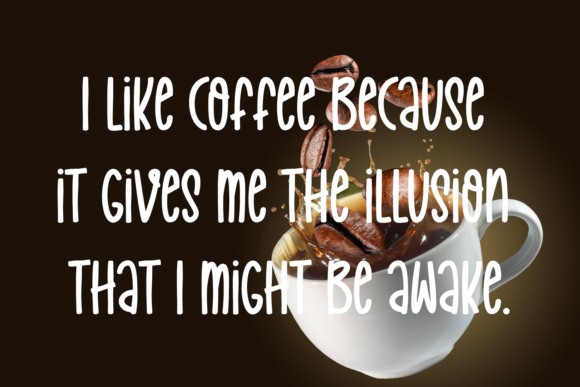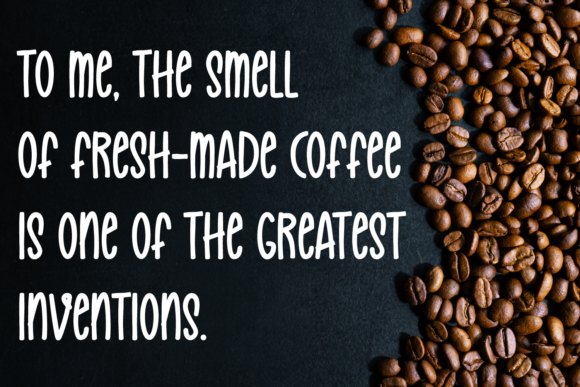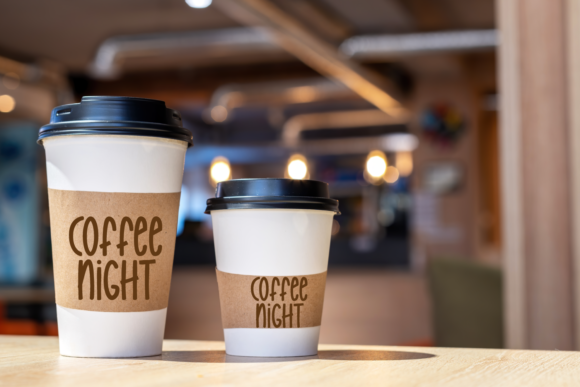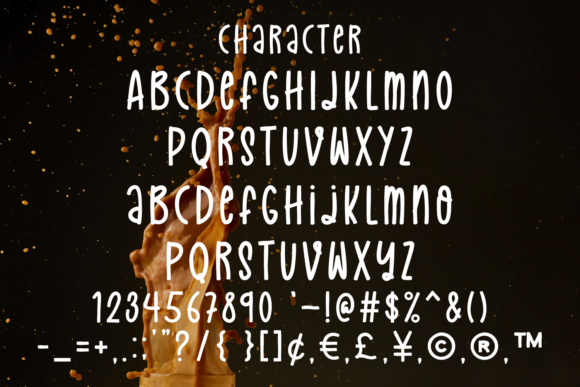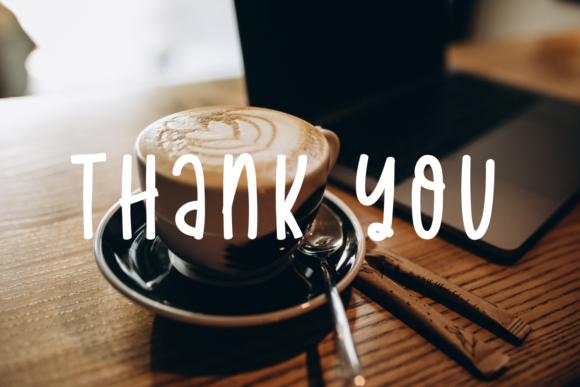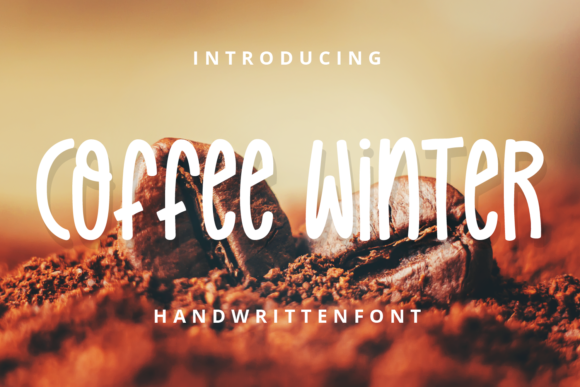
Coffee Winter Font: A Whimsical Script Font to Elevate Your Designs
Are you a designer or crafter looking for a unique and versatile font to add a touch of personality to your creations? Look no further than Coffee Winter Font, a whimsical script font that is sure to become a valuable asset in your font library. With its relaxed theme and lovely style, Coffee Winter Font has the potential to elevate any design, regardless of the topic or project.
What is Coffee Winter Font?
Coffee Winter Font is a carefully crafted script font that exudes a sense of playfulness and charm. Its whimsical design makes it perfect for a wide range of applications, from creative projects such as branding, packaging, and advertising, to digital and print materials like invitations, posters, and social media graphics.
Key Features of Coffee Winter Font
- Whimsical Script Style: Coffee Winter Font features a unique and eye-catching script style that adds a touch of personality to any design.
- Relaxed Theme: The font’s relaxed theme makes it perfect for designs that require a friendly and approachable tone.
- Lovely Style: The font’s lovely style ensures that it will complement a wide range of design elements, from illustrations to photographs.
- Versatile: Coffee Winter Font is incredibly versatile, making it suitable for a wide range of applications and projects.
Benefits of Using Coffee Winter Font
Coffee Winter Font offers a range of benefits for designers and crafters, including:
- High-Quality Design: Coffee Winter Font is designed to high standards, ensuring that it will look great in any design.
- Unique Style: The font’s unique style ensures that your designs will stand out from the crowd and grab the attention of your audience.
Design Ideas Using Coffee Winter Font
Coffee Winter Font is a versatile font that can be used in a wide range of design projects. Here are some ideas to get you started:
- Branding and Packaging: Use Coffee Winter Font to create eye-catching branding and packaging designs that stand out on store shelves.
- Invitations and Stationery: Add a touch of personality to your invitations and stationery with Coffee Winter Font.
- Social Media Graphics: Use Coffee Winter Font to create engaging social media graphics that grab the attention of your audience.
- Posters and Flyers: Create eye-catching posters and flyers with Coffee Winter Font that advertise your products or services.
Coffee Winter Font is a whimsical script font that is sure to become a valuable asset in your font library. With its relaxed theme and lovely style, it’s perfect for a wide range of design projects, from branding and packaging to social media graphics and posters. Whether you’re a designer or crafter, Coffee Winter Font is a great choice for anyone looking to add a touch of personality to their designs.